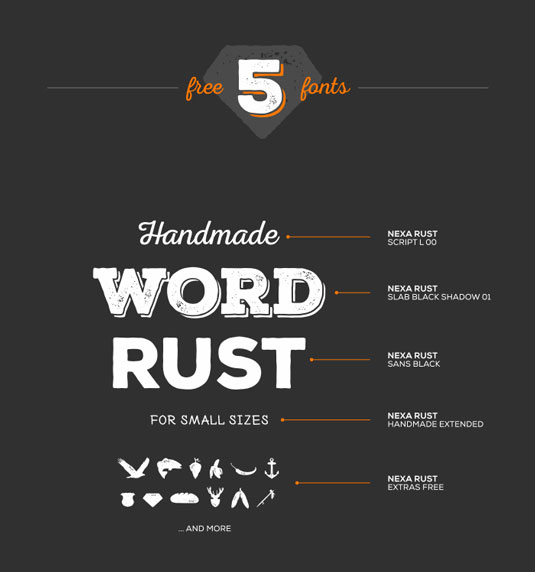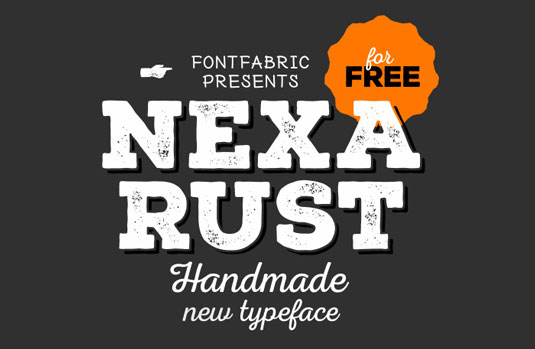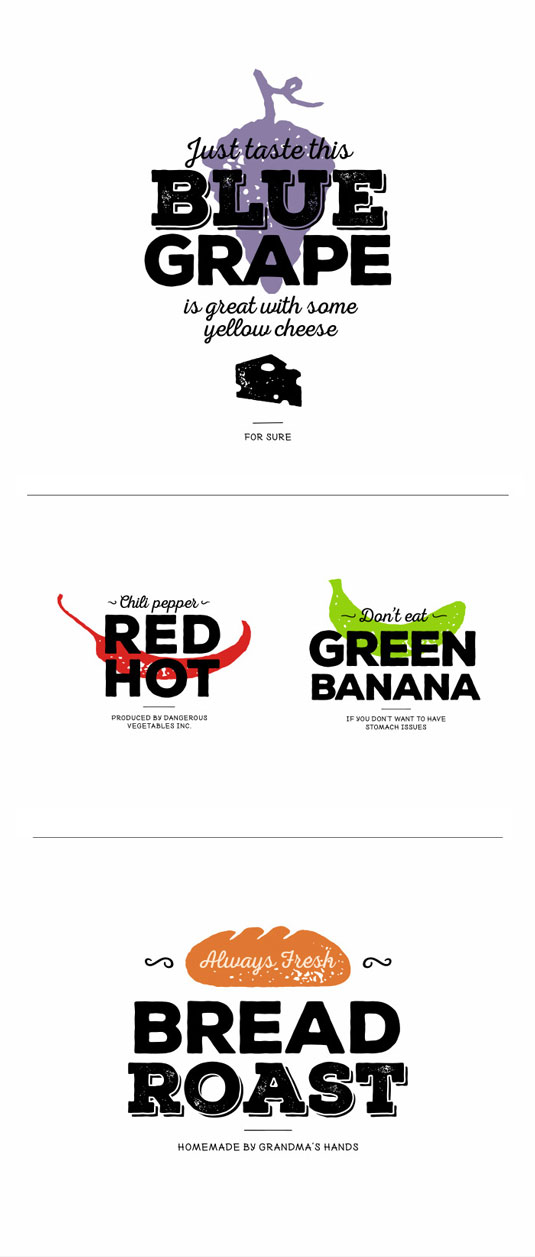
Font of the day: Nexa Rust
Nexa Rust from Fontfabric
Nexa Rust was created be Fontfabric designers Radomir Tinkov, Svetoslav Simov, Ani Petrova and Vasil Stanev. The typeface is described on the website as a 'multifaceted font system consisting of font sub-families; sans, slab, script, handmade and extras. Each of these sub-families contains a number of font weights which have a characteristic warm, rough look and display a few degrees of saturation'.